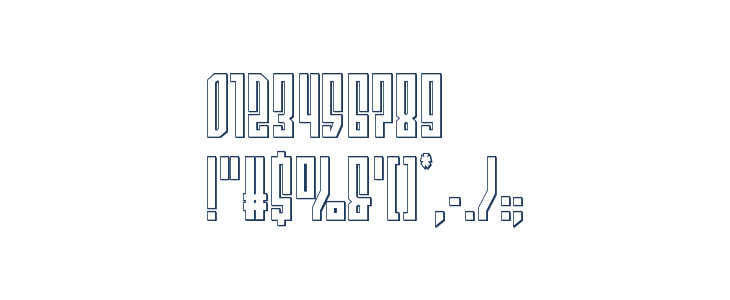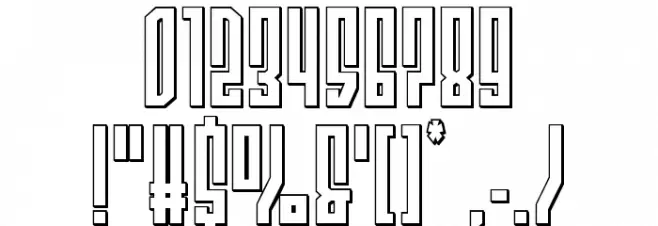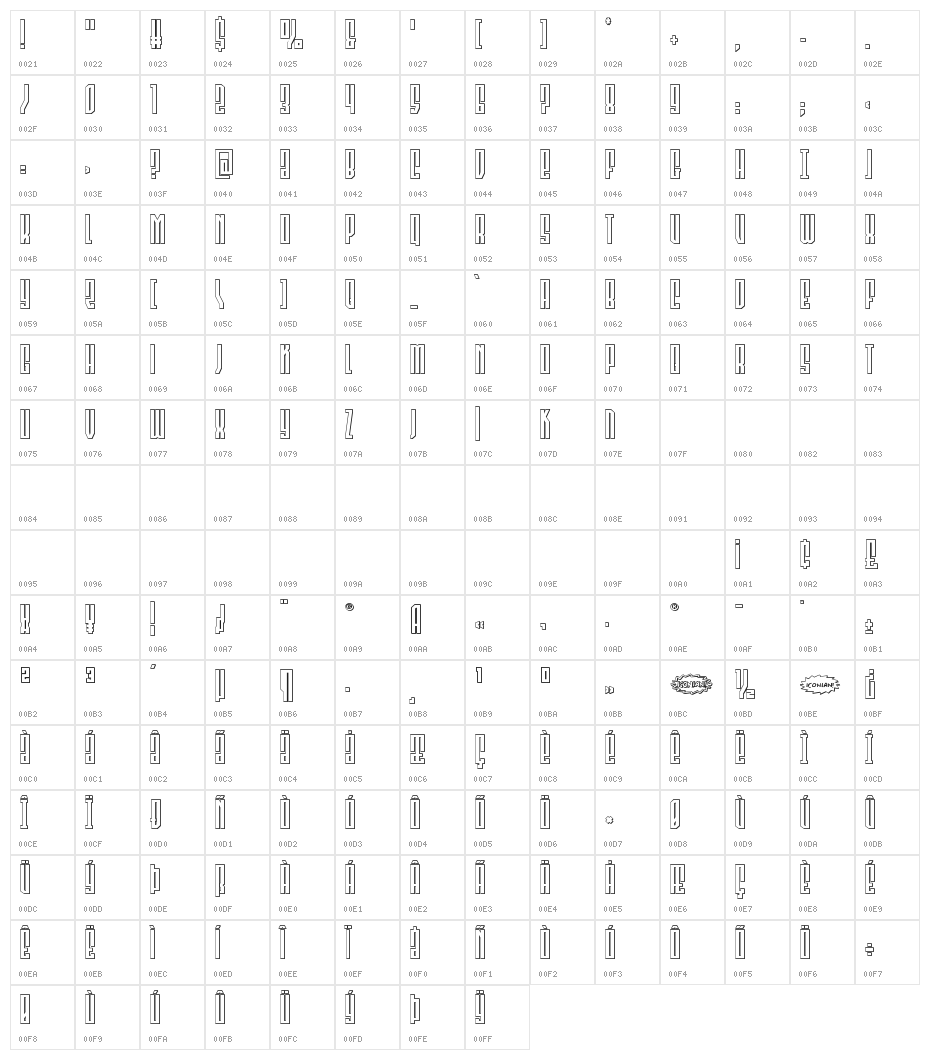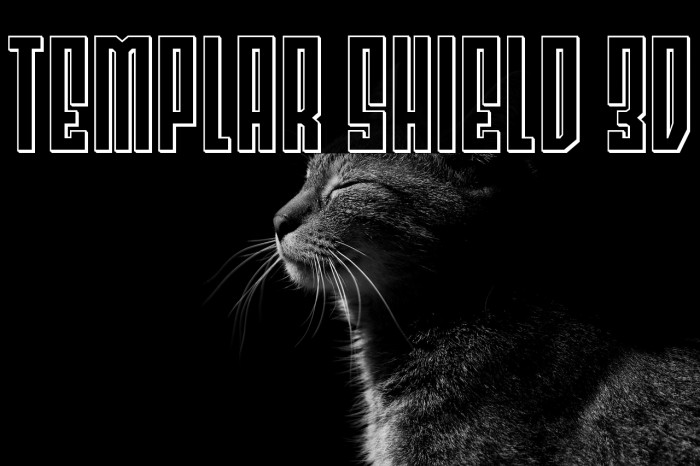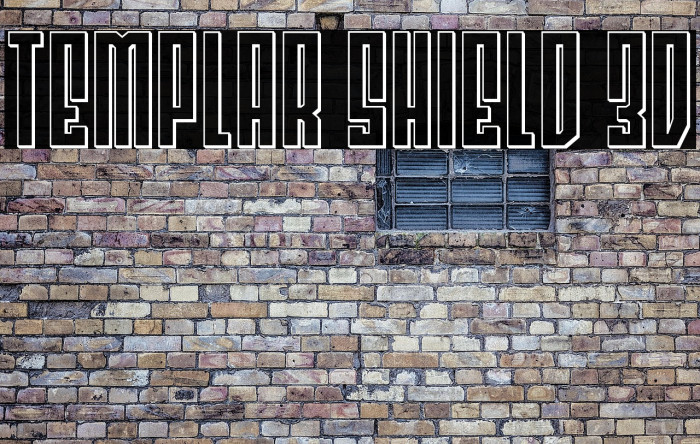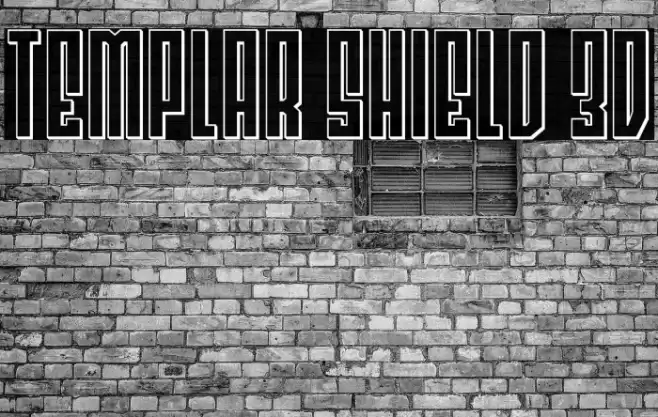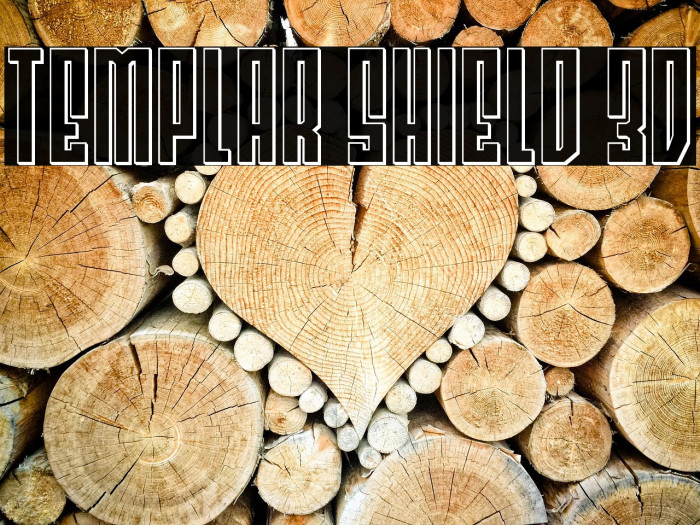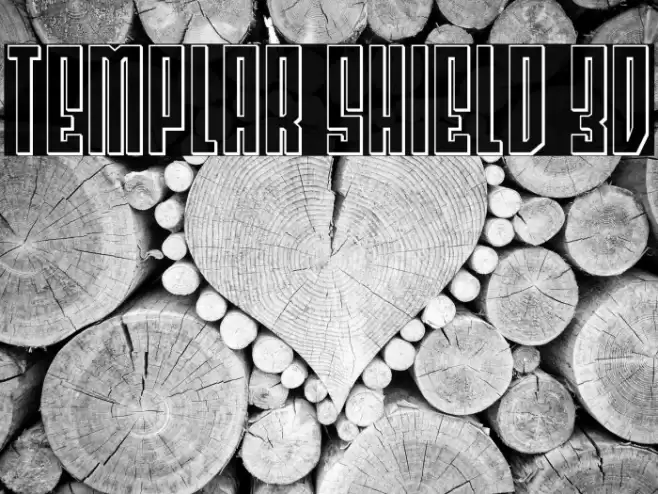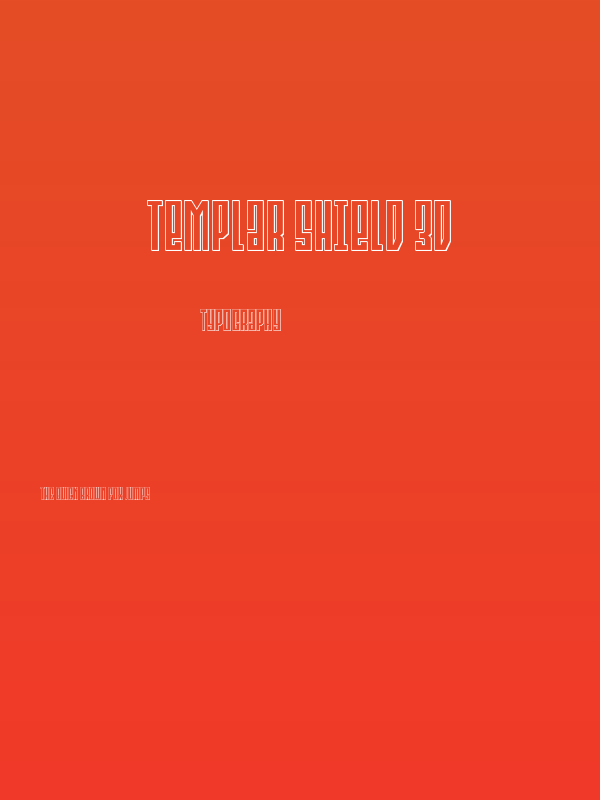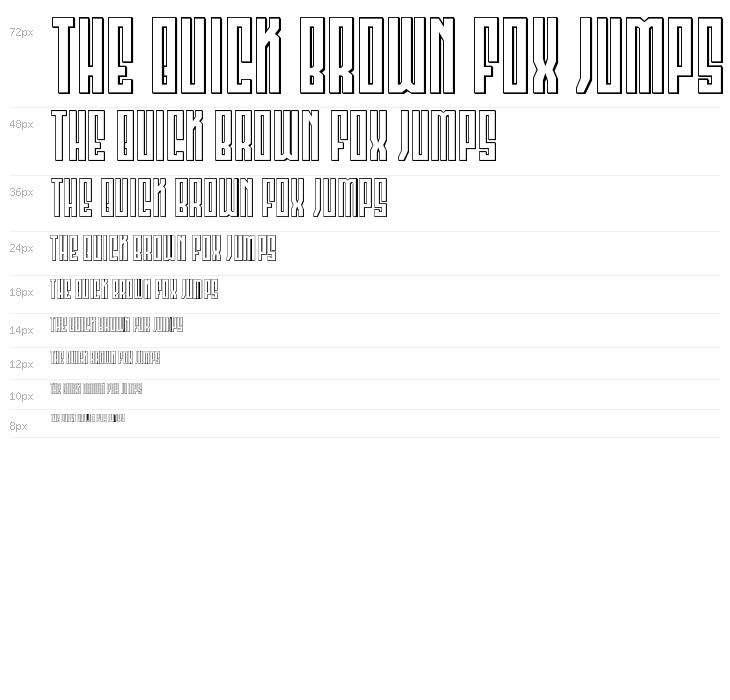
Templar Shield 3D Font
Templar Shield 3D Description
This font features a bold, geometric design with a three-dimensional effect that gives it a striking and modern appearance. The characters are outlined with a thick border, creating a sense of depth and solidity. The uppercase letters are tall and narrow, with sharp angles and clean lines that convey a sense of strength and stability. The numbers and special characters follow the same design principles, ensuring a cohesive look across all elements. This font's unique style makes it ideal for projects that require a strong visual impact.